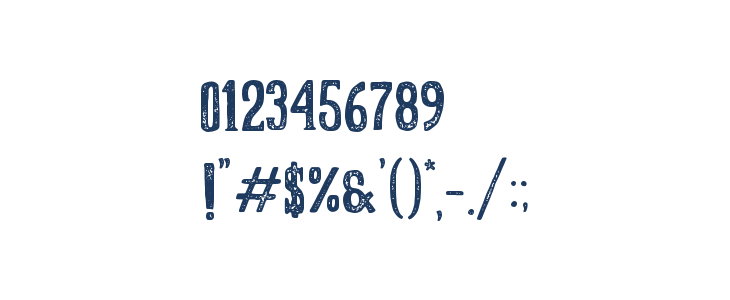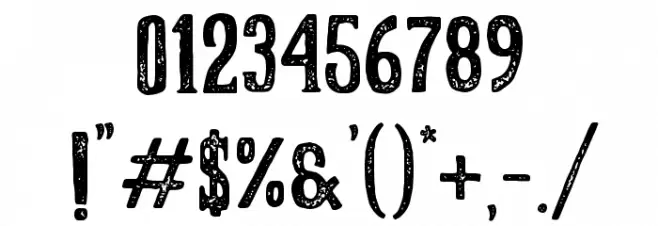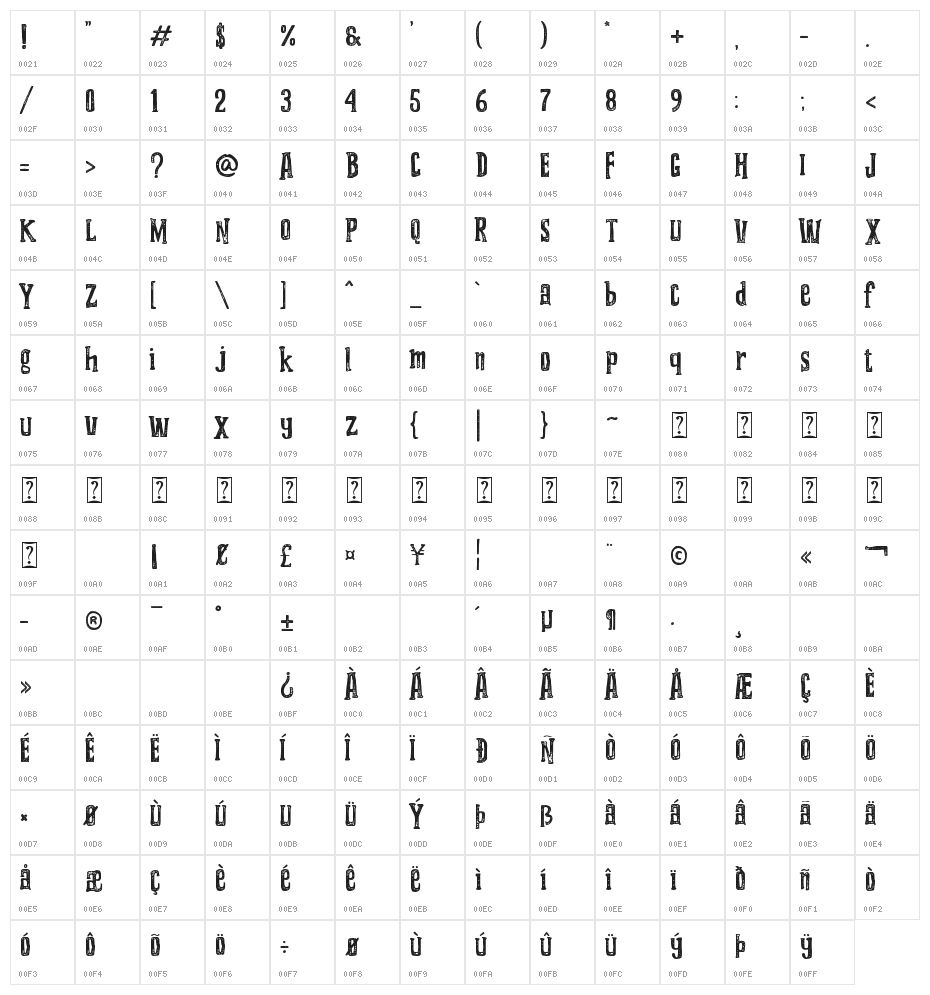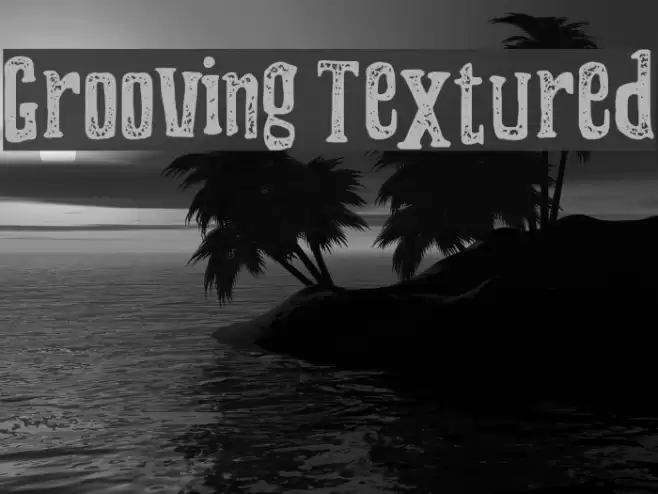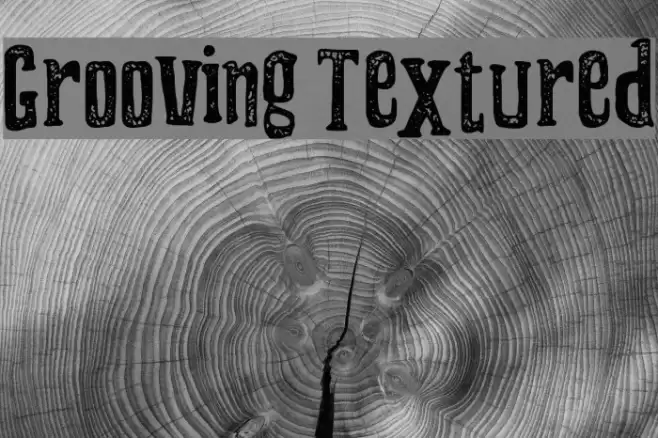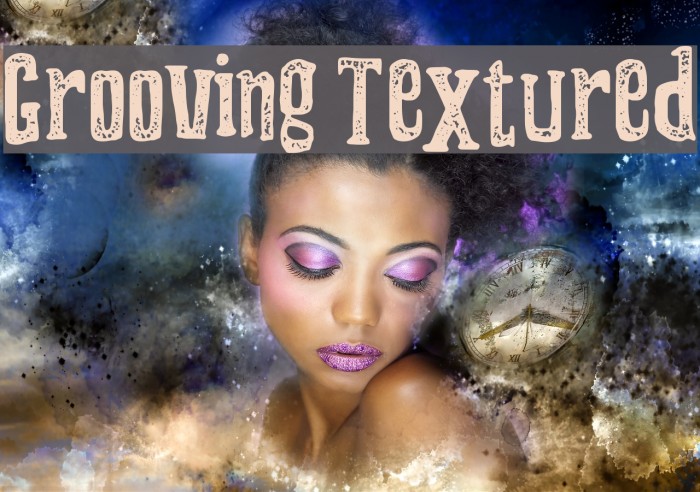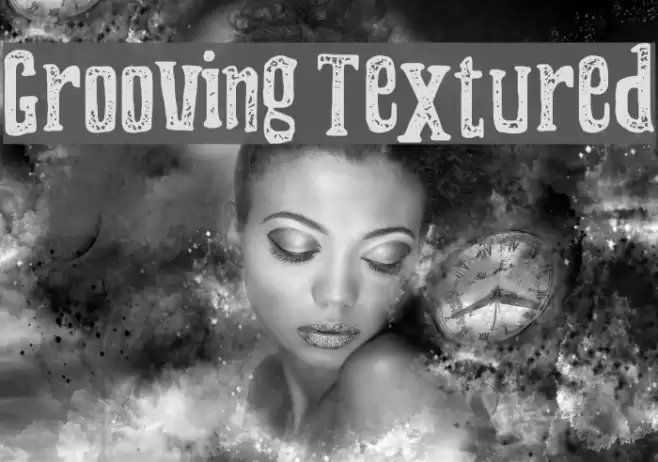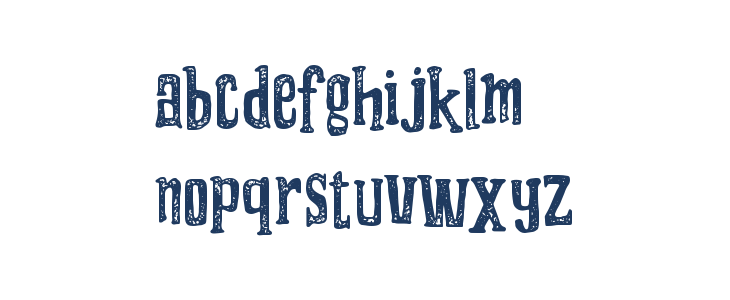
Grooving Textured Font
Grooving Textured Description
This font features a bold, textured style with a distressed appearance, giving it a rugged and vintage feel. The uppercase and lowercase letters maintain a consistent width, with slightly irregular edges that add character and uniqueness. The numbers and special characters follow the same textured pattern, ensuring a cohesive look across all elements. The font's design is reminiscent of old-school, hand-painted signs, making it ideal for projects that require a touch of nostalgia or a handcrafted aesthetic. Its boldness ensures readability while the texture adds depth and interest.
| Use Case | Logos, Posters, Branding |
| Proposed Projects | Perfect for vintage-themed posters, logos, branding, and packaging designs that require a handcrafted or retro look. |